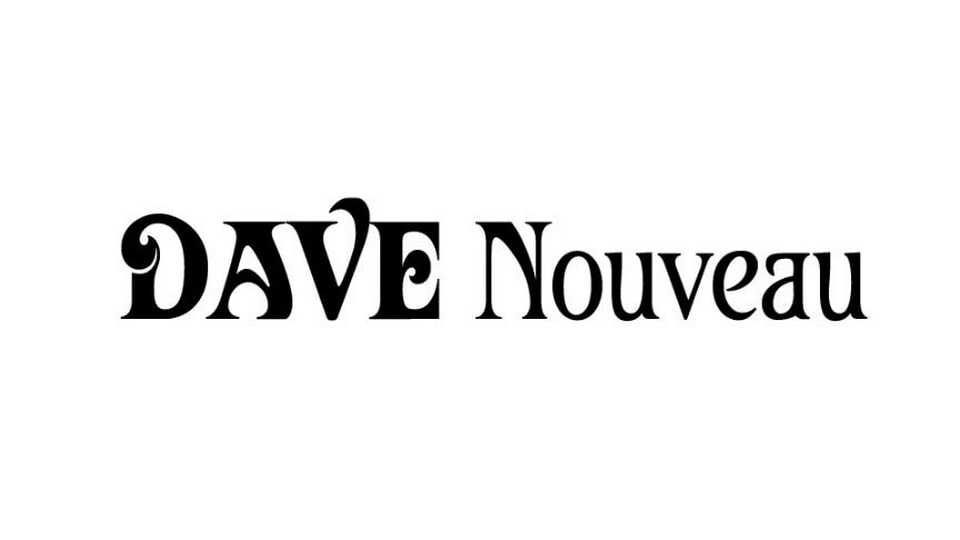
Download DAVeau font, a reconstruction and expansion of “Davison Art Nouveau”, created by Meyer M. “Dave” Davison. DAVeau font seamlessly blends the timeless elegance of Art Nouveau with modern design sensibilities.